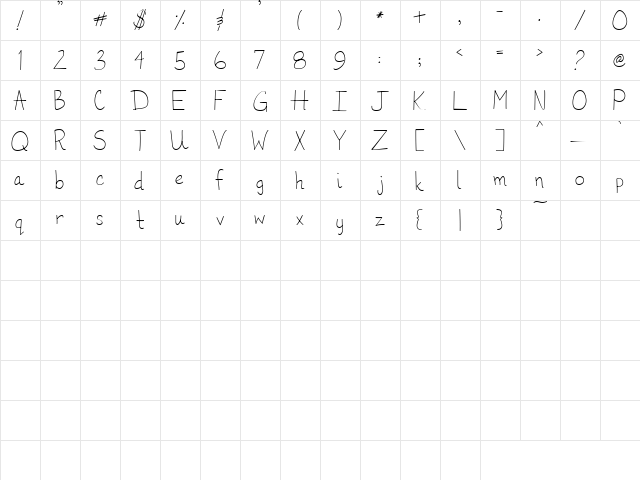
LD Fine Print 15 Regular
Design Context for LD Fine Print 15 Typeface
LD Fine Print 15 takes a measured approach to typography — its balanced proportions and neutral character make it a reliable workhorse for both digital and print work.